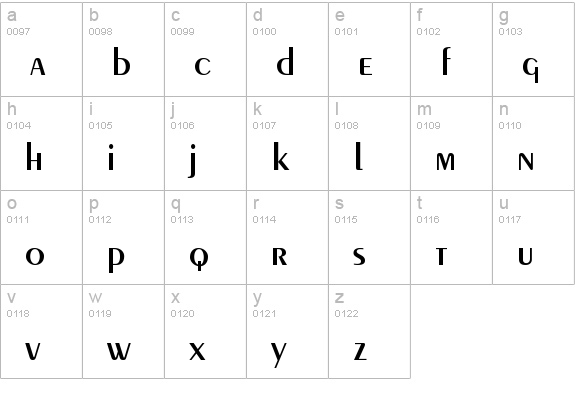
Introducing Penguin, a versatile and charming font that brings a delightful touch to any design project. With its sleek and playful curves, Penguin captures the essence of elegance and fun, making it perfect for a wide range of applications. This stunning font is not only visually appealing, but it also offers exceptional readability, ensuring that your message is conveyed effortlessly to your audience. Whether you're creating eye-catching logos, captivating headlines, or stunning posters, Penguin will elevate your designs to new heights. But the best part? Penguin is absolutely free! Yes, you read that right. This incredible font is freely available to download at FontsMarket.com. Now you can give your projects a professional and polished look without breaking the bank. Don't miss out on the opportunity to add Penguin to your font collection. Its unique style and versatility make it ideal for both personal and commercial use. So why wait? Head over to FontsMarket.com and grab your free download of Penguin today. Unleash your creativity and let this remarkable font take your designs to the next level.